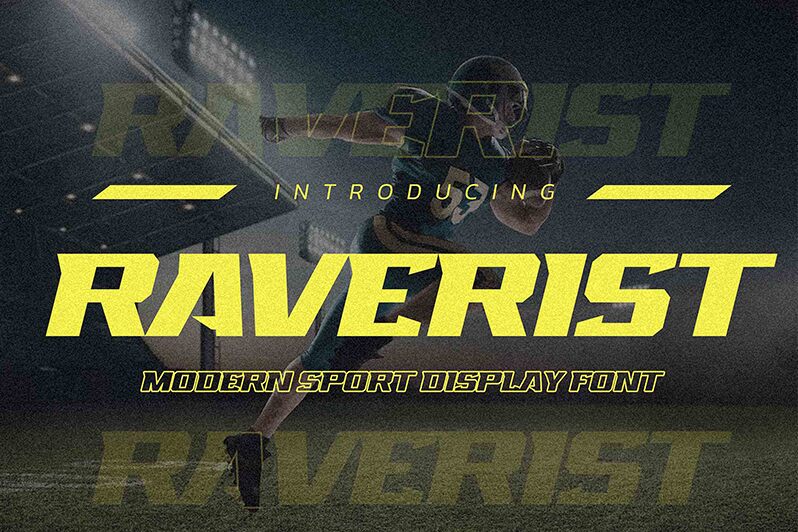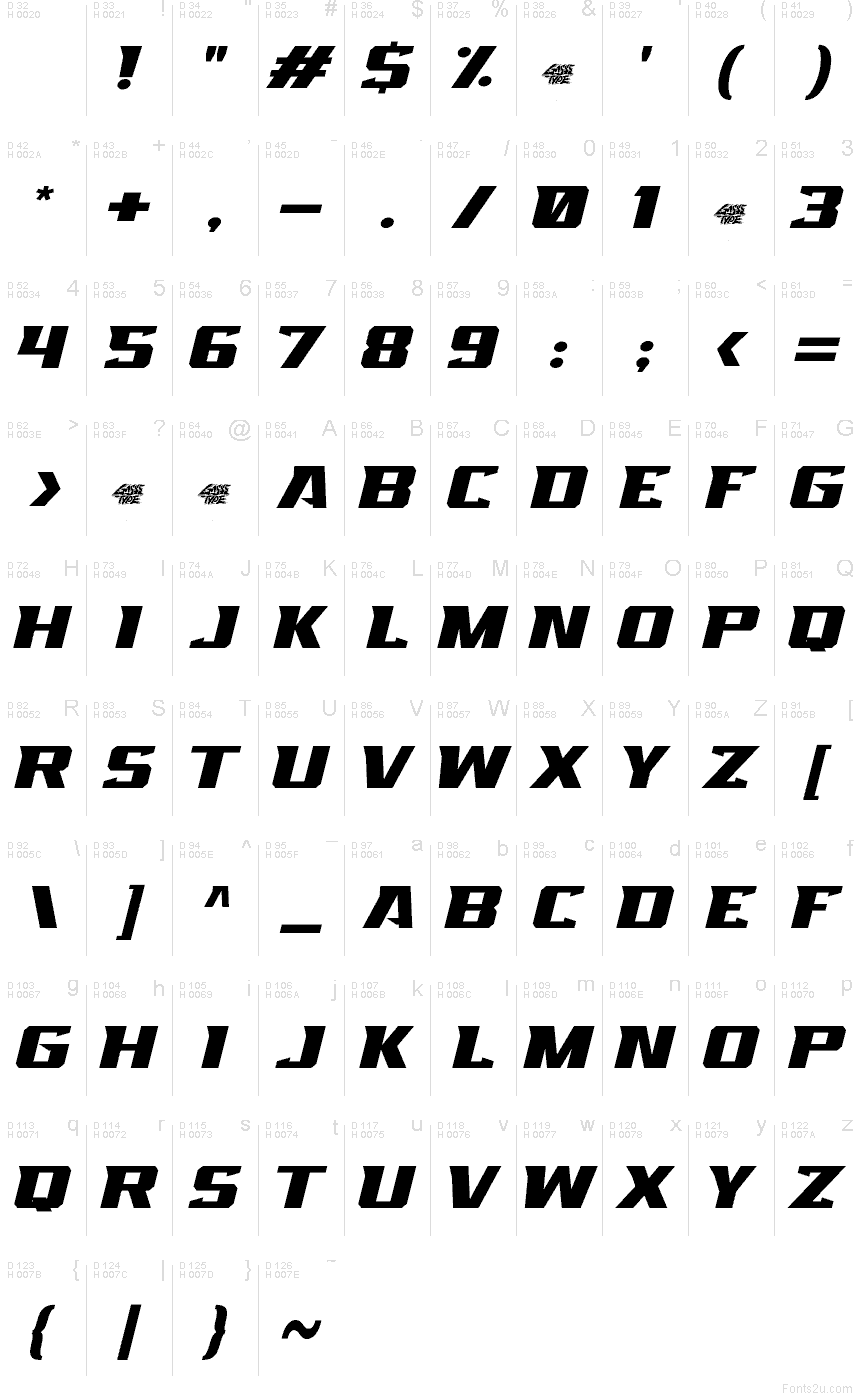
Raverist
Raverist font by Gassstype is a free techno display typeface that feels like motion frozen mid-beat. The letters lean hard forward with razor-edged diagonals and chunky, compressed forms, creating a sense of speed and impact even in a single word. Bold strokes, tight spacing, and angular cuts give it a gritty, industrial energy that instantly reads as electronic, futuristic, and loud.
Using Raverist, you can push high-energy work like rave flyers, EDM posters, festival branding, esports logos, YouTube thumbnails, and event title cards. This free font shines when it’s big and bright, stacked in short wordmarks or slammed across banners. Pair it with a clean, neutral sans for body text to let Raverist handle the punchy headlines while the supporting type keeps everything readable.